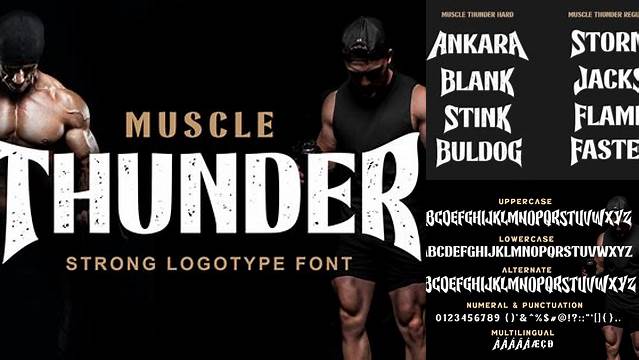
Muscle Thunder Font: Free Download Guide
Hey guys! Ever stumbled upon a font that just screams power and energy? Chances are, you might've seen or heard about the Muscle Thunder Font. It's bold, it's dynamic, and it's perfect for projects that need a serious punch. In this guide, we're diving deep into everything you need to know about this awesome font – where to find it, how to use it, and all the creative ways you can make it work for your designs. So, let's get started and unleash the thunder!
What is Muscle Thunder Font?
Muscle Thunder Font is a typeface known for its bold, dynamic, and energetic appearance. It's designed to grab attention and convey a sense of power, making it a popular choice for various design projects. This font often features strong, thick strokes and a slightly aggressive stance, perfectly embodying the spirit of its name. Whether you're working on sports-related graphics, action-packed posters, or any design that needs a high-impact visual, Muscle Thunder can deliver. Its unique style sets it apart from more conventional fonts, making it an excellent option for projects that require a standout, memorable typeface. The overall design evokes a sense of strength and intensity, which is why it's so widely used in contexts where those qualities are desired.
Why Choose Muscle Thunder Font for Your Projects?
Choosing the right font can make or break a design, and the Muscle Thunder Font brings a unique set of advantages to the table. First and foremost, its boldness ensures that your message will be seen and remembered. The strong, assertive lines of the font command attention, making it ideal for headlines, logos, and any element you want to emphasize. Secondly, Muscle Thunder has a distinct personality that can infuse energy and excitement into your projects. This is particularly useful in fields like sports, fitness, and entertainment, where conveying a sense of dynamism is crucial. Additionally, the font's versatility allows it to be used in both print and digital media, ensuring consistency across all your platforms. Ultimately, selecting Muscle Thunder is about making a statement and creating a visual impact that resonates with your audience.
Using Muscle Thunder Font in Graphic Design Projects
Once you've got Muscle Thunder Font installed, the real fun begins: incorporating it into your graphic design projects. This font is a powerhouse for headlines and titles, instantly grabbing attention with its bold, energetic style. Consider using it for posters, flyers, and social media graphics where you need to make a strong statement. Muscle Thunder also works well in logos, especially for brands that want to project strength and dynamism. However, it's best to use it sparingly for body text, as its strong character can be overwhelming in large blocks of text. Experiment with different sizes, colors, and spacing to find the perfect balance. Pairing Muscle Thunder with a simpler, more neutral font for body text can create a visually appealing contrast. Ultimately, the key is to let Muscle Thunder's unique personality shine while ensuring it complements the overall design.
Pairing Muscle Thunder Font with Other Fonts
Muscle Thunder Font is a statement-maker, but it plays best when paired with the right supporting cast. Since Muscle Thunder is so bold and attention-grabbing, you'll want to choose a secondary font that's more understated and versatile. Think of it as the supporting actor that complements the star. Some great options include sans-serif fonts like Open Sans, Roboto, or Lato. These fonts are clean and modern, providing a nice contrast to Muscle Thunder's strong personality. Serif fonts like Merriweather or Playfair Display can also work well, adding a touch of elegance to balance Muscle Thunder's intensity. The goal is to create a visual hierarchy where Muscle Thunder stands out for headlines and titles, while the secondary font handles the body text with clarity and readability. Experiment with different combinations to find a pairing that feels balanced and harmonious.
Creating Logos with Muscle Thunder Font
If you're aiming for a logo that exudes power and energy, Muscle Thunder Font can be an excellent choice. Its bold, dynamic style instantly grabs attention and conveys a sense of strength. When designing a logo with Muscle Thunder, start by considering the brand's identity and the message you want to communicate. Muscle Thunder is particularly well-suited for sports teams, fitness brands, and companies that want to project a sense of action and excitement. Keep the logo design simple and clean, allowing Muscle Thunder's unique character to shine. Experiment with different letter combinations and arrangements to create a memorable and impactful visual. Pay attention to the spacing between letters and the overall balance of the logo. Remember, a great logo is both visually appealing and easily recognizable, so make sure Muscle Thunder is used in a way that enhances the brand's identity.
Designing Posters with Muscle Thunder Font
Muscle Thunder Font is a fantastic choice for designing posters that demand attention. Its bold and energetic style makes it perfect for grabbing the viewer's eye and conveying a sense of excitement. When creating posters with Muscle Thunder, consider using it for the main headline or title to make a strong statement. Pair it with vibrant colors and dynamic imagery to amplify the font's impact. Think about the overall message of the poster and how Muscle Thunder can help reinforce that message. For instance, if you're designing a poster for a sports event, Muscle Thunder can convey the energy and intensity of the competition. Balance the use of Muscle Thunder with other design elements to avoid overwhelming the viewer. A well-designed poster should be visually appealing, easy to read, and memorable, and Muscle Thunder can play a key role in achieving those goals.
Using Muscle Thunder Font in Social Media Graphics
In the fast-paced world of social media, grabbing attention is crucial, and Muscle Thunder Font can help you do just that. Its bold and dynamic style makes it perfect for creating eye-catching social media graphics that stand out from the crowd. Use Muscle Thunder for headlines and titles to make a strong statement and draw viewers in. Experiment with different colors, sizes, and placements to find what works best for each platform. Consider using Muscle Thunder in animated graphics or video thumbnails to add an extra layer of visual interest. Remember to keep your designs clean and easy to read, even on small screens. Muscle Thunder can be particularly effective for promoting events, sales, and other time-sensitive information. By using Muscle Thunder strategically, you can create social media graphics that are both visually appealing and highly effective.
Creating Eye-Catching Headlines with Muscle Thunder Font
When it comes to creating headlines that pop, Muscle Thunder Font is your secret weapon. Its bold, assertive style is designed to grab attention and make a statement. Whether you're crafting headlines for a website, blog, or marketing campaign, Muscle Thunder can help you convey a sense of power and energy. Experiment with different sizes, colors, and spacing to find the perfect look for your headline. Consider using all caps for maximum impact, or mix uppercase and lowercase letters for a more dynamic feel. Pair Muscle Thunder with a complementary font for the body text to create a balanced and visually appealing design. Remember, a great headline should be both eye-catching and easy to read, so make sure Muscle Thunder is used in a way that enhances clarity and readability. With Muscle Thunder, your headlines will command attention and leave a lasting impression.
Designing T-Shirts with Muscle Thunder Font
Muscle Thunder Font is a fantastic choice for designing t-shirts that make a statement. Its bold and dynamic style is perfect for creating eye-catching designs that stand out from the crowd. When designing t-shirts with Muscle Thunder, consider the overall message you want to convey and how the font can help reinforce that message. Muscle Thunder is particularly well-suited for sports teams, fitness brands, and companies that want to project a sense of energy and strength. Experiment with different layouts, colors, and graphics to create a unique and visually appealing design. Consider using Muscle Thunder for slogans, logos, or other key elements of the design. Remember to keep the design simple and clean, allowing Muscle Thunder's unique character to shine. A well-designed t-shirt should be both stylish and comfortable to wear, and Muscle Thunder can play a key role in achieving those goals.
Making Business Cards with Muscle Thunder Font
Even in the digital age, a well-designed business card can make a lasting impression, and Muscle Thunder Font can help you create a card that stands out. Its bold, energetic style can convey a sense of strength and dynamism, making it a great choice for businesses that want to project a confident image. When designing business cards with Muscle Thunder, consider using it for your name, company name, or tagline. Keep the design clean and simple, focusing on readability and visual appeal. Pair Muscle Thunder with a more understated font for contact information to create a balanced look. Choose colors that complement Muscle Thunder's style and reinforce your brand's identity. Remember, a business card is a reflection of your brand, so make sure it's well-designed and professional. With Muscle Thunder, you can create a business card that makes a memorable impression.
Creating Website Headers with Muscle Thunder Font
A website header is prime real estate for making a strong first impression, and Muscle Thunder Font can help you create a header that grabs attention. Its bold and dynamic style is perfect for conveying a sense of energy and excitement. When designing website headers with Muscle Thunder, consider using it for the main headline or title to make a statement. Choose colors that complement your brand's identity and create a visually appealing contrast. Make sure the header is easy to read and navigate, even on smaller screens. Pair Muscle Thunder with a complementary font for the body text to create a balanced and harmonious design. Remember, a great website header should be both visually appealing and user-friendly, and Muscle Thunder can play a key role in achieving those goals.
Designing Flyers with Muscle Thunder Font
Muscle Thunder Font is an excellent choice for designing flyers that demand attention. Its bold and energetic style makes it perfect for grabbing the viewer's eye and conveying a sense of excitement. When creating flyers with Muscle Thunder, consider using it for the main headline or title to make a strong statement. Pair it with vibrant colors and dynamic imagery to amplify the font's impact. Think about the overall message of the flyer and how Muscle Thunder can help reinforce that message. For instance, if you're designing a flyer for a concert or party, Muscle Thunder can convey the energy and excitement of the event. Balance the use of Muscle Thunder with other design elements to avoid overwhelming the viewer. A well-designed flyer should be visually appealing, easy to read, and memorable, and Muscle Thunder can play a key role in achieving those goals.
Using Muscle Thunder Font in Video Editing Projects
In the world of video editing, typography can play a crucial role in conveying your message and setting the tone, and Muscle Thunder Font can be a powerful tool in your arsenal. Its bold and dynamic style makes it perfect for creating eye-catching titles, lower thirds, and end screens. When using Muscle Thunder in video editing projects, consider the overall theme and style of your video. Muscle Thunder is particularly well-suited for action-packed videos, sports highlights, and energetic content. Experiment with different animations, transitions, and effects to enhance the font's impact. Make sure the text is easy to read and stands out against the background. Remember, typography is an essential element of video editing, and Muscle Thunder can help you create visually stunning and engaging content.
Combining Muscle Thunder Font with Different Color Palettes
Muscle Thunder Font can evoke different feelings depending on the color palette you pair it with. For a high-energy, attention-grabbing look, try combining Muscle Thunder with bright, vibrant colors like red, yellow, and orange. These colors can amplify the font's boldness and create a sense of excitement. If you're aiming for a more sophisticated and powerful look, consider using a darker color palette with shades of black, gray, and deep blues. This can add a touch of elegance and authority to Muscle Thunder's style. For a more natural and organic feel, try pairing Muscle Thunder with earthy tones like greens, browns, and beiges. Experiment with different color combinations to find what works best for your project and the message you want to convey. Remember, color is a powerful design element, and it can greatly enhance the impact of Muscle Thunder Font.
Exploring Alternatives to Muscle Thunder Font
While Muscle Thunder Font is a unique and powerful choice, it's always good to explore alternatives to broaden your design options. If you're looking for a similar bold and dynamic style, consider fonts like Impact, Bebas Neue, or Montserrat. These fonts offer a strong, attention-grabbing aesthetic that can be used in a variety of design projects. If you're looking for something a bit more versatile, try fonts like Open Sans, Roboto, or Lato. These fonts are clean and modern, making them a great choice for body text and supporting elements. Remember, the best font for your project depends on the overall message you want to convey and the style you're aiming for. Exploring different font options can help you find the perfect fit and create a truly unique and impactful design.
Common Mistakes to Avoid When Using Muscle Thunder Font
Using Muscle Thunder Font effectively requires a bit of finesse, and there are some common mistakes to avoid. One of the biggest mistakes is overusing the font. Muscle Thunder is a statement-maker, and using it too much can overwhelm the viewer and make your design feel cluttered. It's best to use Muscle Thunder sparingly, focusing on headlines, titles, and other key elements. Another common mistake is pairing Muscle Thunder with fonts that are too similar in style. This can create a lack of contrast and make your design feel visually monotonous. Always pair Muscle Thunder with a font that complements its style and creates a balanced look. Finally, avoid using Muscle Thunder in small sizes or for long blocks of text. Its bold and assertive style can make it difficult to read in smaller sizes, so it's best to use it for larger elements that need to grab attention. By avoiding these common mistakes, you can use Muscle Thunder Font effectively and create stunning designs.
Muscle Thunder Font and SEO: Optimizing Your Designs
Believe it or not, even the font you choose can impact your SEO (Search Engine Optimization). While Muscle Thunder Font itself doesn't directly affect your website's ranking, it can influence user experience, which is a crucial factor in SEO. Using a font that is easy to read and visually appealing can keep visitors engaged and reduce bounce rates. When using Muscle Thunder, make sure it's used in a way that enhances readability and doesn't detract from the overall user experience. For example, using Muscle Thunder for headlines can make your content more scannable and engaging. Additionally, consider using alt text for images that contain text in Muscle Thunder to help search engines understand the content. By optimizing your designs with user experience in mind, you can indirectly improve your SEO and attract more visitors to your website.
The Future of Bold Fonts Like Muscle Thunder
The world of typography is constantly evolving, and bold fonts like Muscle Thunder Font are likely to remain popular for the foreseeable future. As designers continue to seek ways to grab attention and make a statement, bold fonts will continue to be a valuable tool. We can expect to see new variations of bold fonts emerge, with innovative designs and unique characteristics. Additionally, the increasing importance of user experience will likely influence the design of bold fonts, with a focus on readability and visual appeal. Whether it's for website headers, social media graphics, or print materials, bold fonts will continue to play a key role in creating impactful and memorable designs. So, keep an eye on the latest trends in typography and be ready to embrace the future of bold fonts like Muscle Thunder.
Muscle Thunder Font and Branding: Creating a Strong Identity
In the world of branding, consistency is key, and the font you choose can play a significant role in creating a strong and recognizable brand identity. Muscle Thunder Font, with its bold and dynamic style, can be a powerful tool for brands that want to project a sense of energy, strength, and confidence. When using Muscle Thunder in your branding efforts, consider how it aligns with your brand's values and personality. Muscle Thunder is particularly well-suited for sports teams, fitness brands, and companies that want to make a bold statement. Use Muscle Thunder consistently across all your branding materials, from your logo and website to your marketing collateral and social media graphics. This will help create a cohesive and memorable brand identity that resonates with your target audience. Remember, branding is all about creating a lasting impression, and Muscle Thunder can help you achieve that goal.
Advanced Techniques for Customizing Muscle Thunder Font
For designers who want to take Muscle Thunder Font to the next level, there are several advanced techniques you can use to customize the font and create a truly unique look. One technique is to adjust the letter spacing and kerning to create a more balanced and visually appealing design. Another technique is to add custom outlines or strokes to the font to give it a more distinct appearance. You can also experiment with different gradients, textures, and effects to add depth and dimension to the font. If you're skilled in font editing software, you can even modify the individual letterforms to create a completely custom version of Muscle Thunder. However, be sure to respect the font's license agreement and avoid making any changes that violate the terms of use. With these advanced techniques, you can transform Muscle Thunder Font into a one-of-a-kind typeface that perfectly reflects your brand's identity.
Ethical Considerations When Downloading Fonts for Free
When searching for free fonts like Muscle Thunder Font, it's important to consider the ethical implications of downloading and using fonts without proper licensing. While there are many legitimate sources for free fonts, there are also websites that offer pirated or illegally distributed fonts. Downloading fonts from these sources not only violates copyright laws but also undermines the hard work and creativity of font designers. Before downloading any font, always check the licensing terms to ensure that you're using it legally. If you're unsure about the legitimacy of a font source, it's best to err on the side of caution and avoid downloading the font. Supporting font designers by purchasing their fonts or obtaining proper licenses helps ensure that they can continue to create new and innovative typefaces. Remember, using fonts ethically is not only the right thing to do but also helps foster a thriving and sustainable design community.
Troubleshooting Common Issues with Muscle Thunder Font Installation
Even with a straightforward installation process, you might encounter some issues when installing Muscle Thunder Font. If the font doesn't appear in your design software after installation, try restarting the software or your computer. Sometimes, the font cache needs to be refreshed for the new font to appear. If the font still doesn't show up, check to make sure the font file isn't corrupted. Try downloading the font again from a different source. Another common issue is font conflicts, where two fonts with the same name can cause problems. To resolve this, try removing any duplicate font files from your system. If you're still having trouble, consult the documentation for your operating system or design software for troubleshooting tips. With a little patience and persistence, you can usually resolve any installation issues and start using Muscle Thunder Font in your designs.
Muscle Thunder Font in Print vs. Digital Media: What to Consider
When using Muscle Thunder Font, it's important to consider the differences between print and digital media. In print, the font will appear as it is, with no pixelation or distortion. However, in digital media, the font may be rendered differently depending on the device and browser. To ensure that Muscle Thunder looks its best in both print and digital media, it's important to optimize the font for each medium. In print, make sure the font is properly embedded in your design files to avoid any font substitution issues. In digital media, use web-safe font formats like TTF or OTF and consider using CSS font stacks to provide fallback options for browsers that don't support Muscle Thunder. Additionally, pay attention to the font size and line height to ensure that the text is easy to read on different screen sizes. By considering these factors, you can ensure that Muscle Thunder Font looks great in both print and digital media.
Inspiring Examples of Designs Using Muscle Thunder Font
To get your creative juices flowing, let's take a look at some inspiring examples of designs that use Muscle Thunder Font effectively. From sports-themed posters to fitness brand logos, Muscle Thunder has been used in a variety of creative ways. One example is a boxing gym logo that uses Muscle Thunder for the gym's name, conveying a sense of strength and power. Another example is a t-shirt design for a sports team that uses Muscle Thunder for the team's slogan, creating a bold and energetic look. You can also find Muscle Thunder used in website headers, social media graphics, and event flyers. These examples showcase the versatility of Muscle Thunder and demonstrate how it can be used to create impactful and memorable designs. So, take inspiration from these examples and start experimenting with Muscle Thunder to create your own unique designs.
Maximizing the Impact of Muscle Thunder Font in Marketing Campaigns
In the competitive world of marketing, grabbing attention is crucial, and Muscle Thunder Font can be a powerful tool for creating marketing campaigns that stand out. Its bold and dynamic style can help you convey a sense of energy, excitement, and confidence. When using Muscle Thunder in your marketing campaigns, consider your target audience and the message you want to convey. Muscle Thunder is particularly well-suited for campaigns targeting sports enthusiasts, fitness enthusiasts, and anyone who appreciates a bold and energetic aesthetic. Use Muscle Thunder strategically in your headlines, call-to-actions, and other key elements to grab attention and drive engagement. Pair Muscle Thunder with vibrant colors, dynamic imagery, and compelling messaging to create a marketing campaign that resonates with your target audience. Remember, a successful marketing campaign is all about making a lasting impression, and Muscle Thunder can help you achieve that goal.
Resources for Learning More About Font Licensing and Typography
To deepen your understanding of font licensing and typography, there are several valuable resources available online and in print. For information about font licensing, check out the websites of font foundries and distributors like MyFonts, FontShop, and Adobe Fonts. These websites offer detailed explanations of different font licenses and provide helpful tips for ensuring compliance. For learning more about typography, explore online resources like Typography.com, I Love Typography, and Typewolf. These websites offer articles, tutorials, and inspiration for designers of all skill levels. Additionally, consider reading books on typography, such as "The Elements of Typographic Style" by Robert Bringhurst and "Thinking with Type" by Ellen Lupton. These resources can help you develop a deeper understanding of typography and make more informed decisions about font selection and usage. Remember, continuous learning is essential for staying up-to-date with the latest trends and best practices in typography.
Muscle Thunder Font: A Recap and Final Thoughts
So, there you have it – a comprehensive guide to Muscle Thunder Font. We've covered everything from finding free download sources and understanding licensing to using Muscle Thunder in graphic design projects and marketing campaigns. We've also explored alternatives to Muscle Thunder and discussed common mistakes to avoid. Hopefully, this guide has given you a solid understanding of Muscle Thunder Font and inspired you to use it in your own designs. Remember, typography is a powerful design element, and choosing the right font can make a big difference in the overall impact of your designs. So, experiment with Muscle Thunder, explore its versatility, and let it help you create stunning and memorable visuals. Thanks for reading, and happy designing!